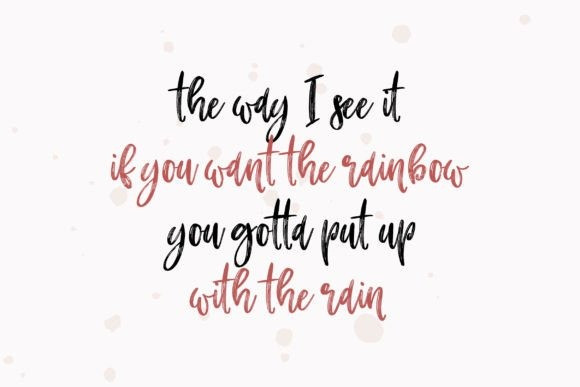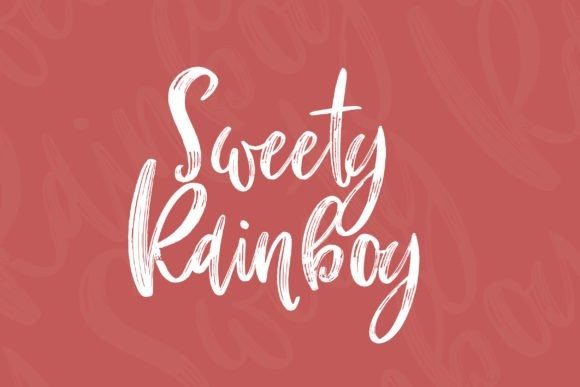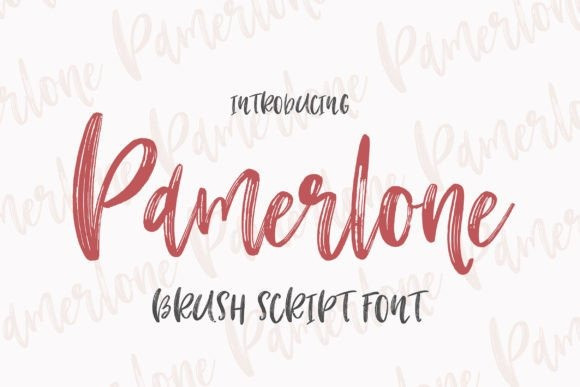
Pamerlone Font
Pamerlone’s Brush Font stunning design features flowing, graceful lines and intricate, hand-drawn flourishes that evoke a sense of luxury and sophistication. Perfect for wedding invitations, upscale branding, and other refined designs, Pamerlone adds a touch of timeless beauty to any project.